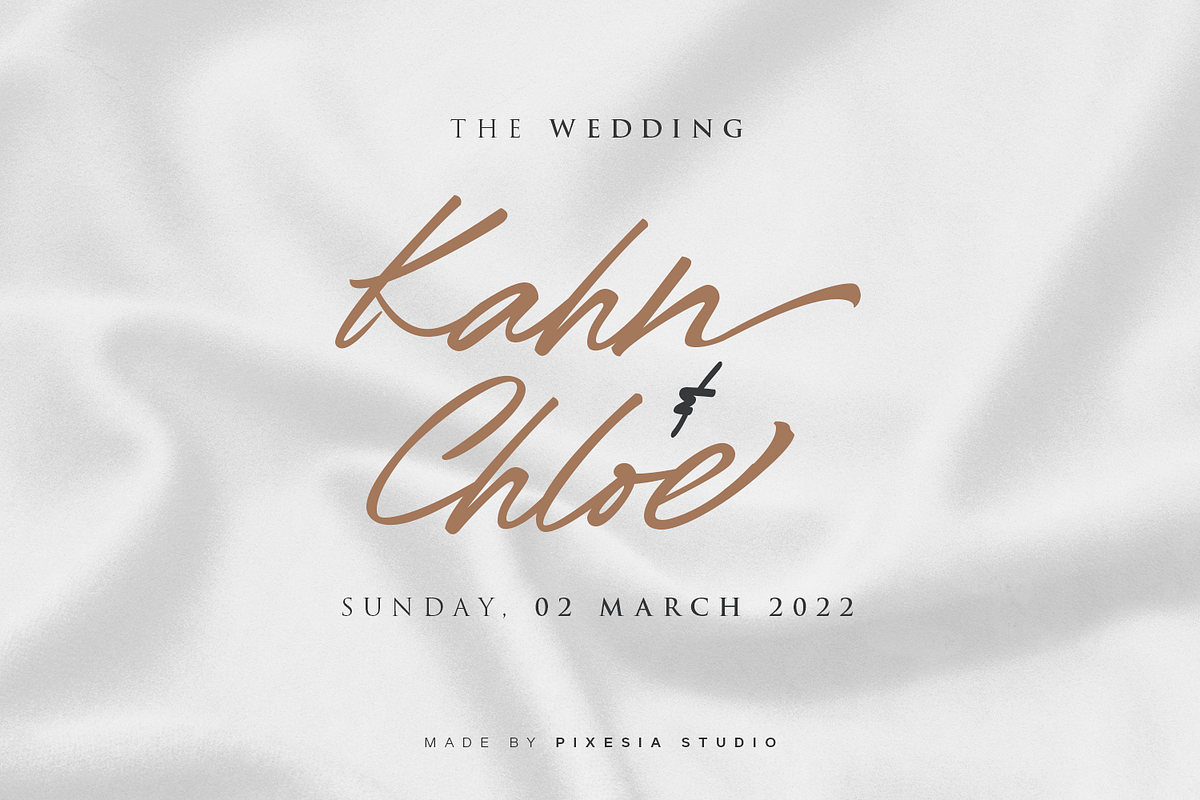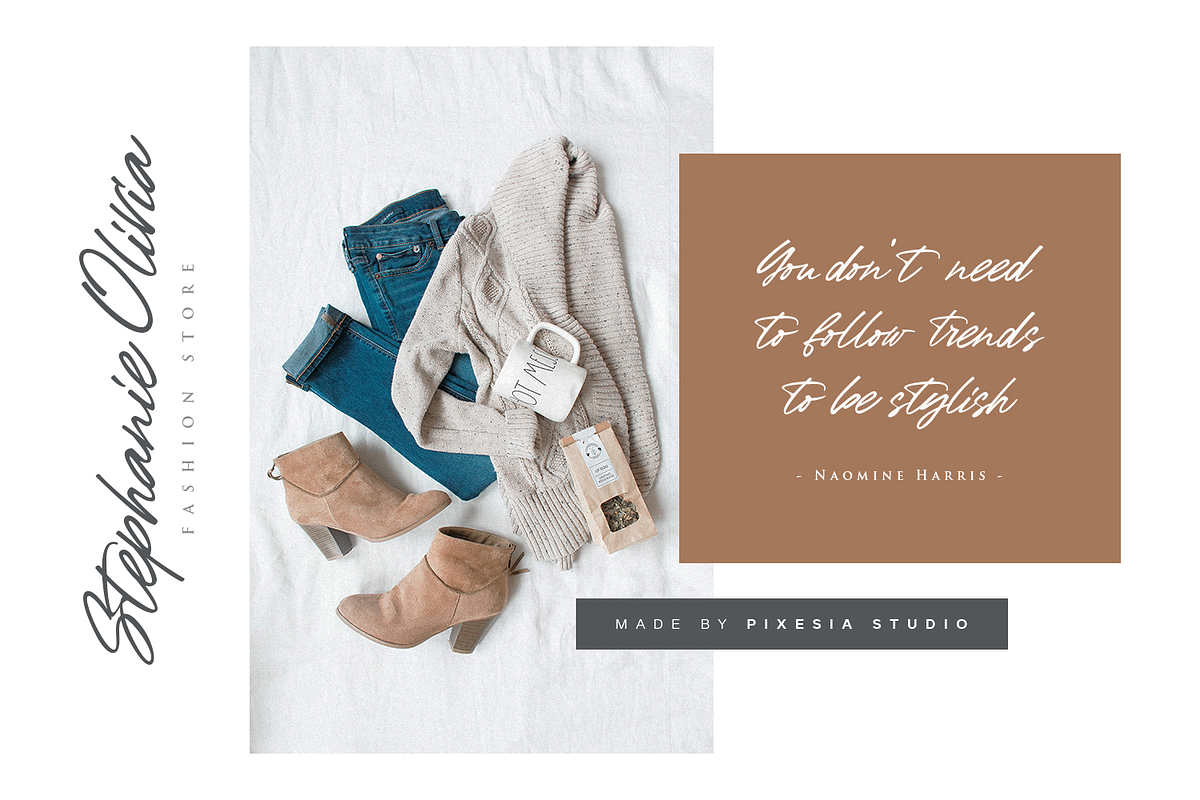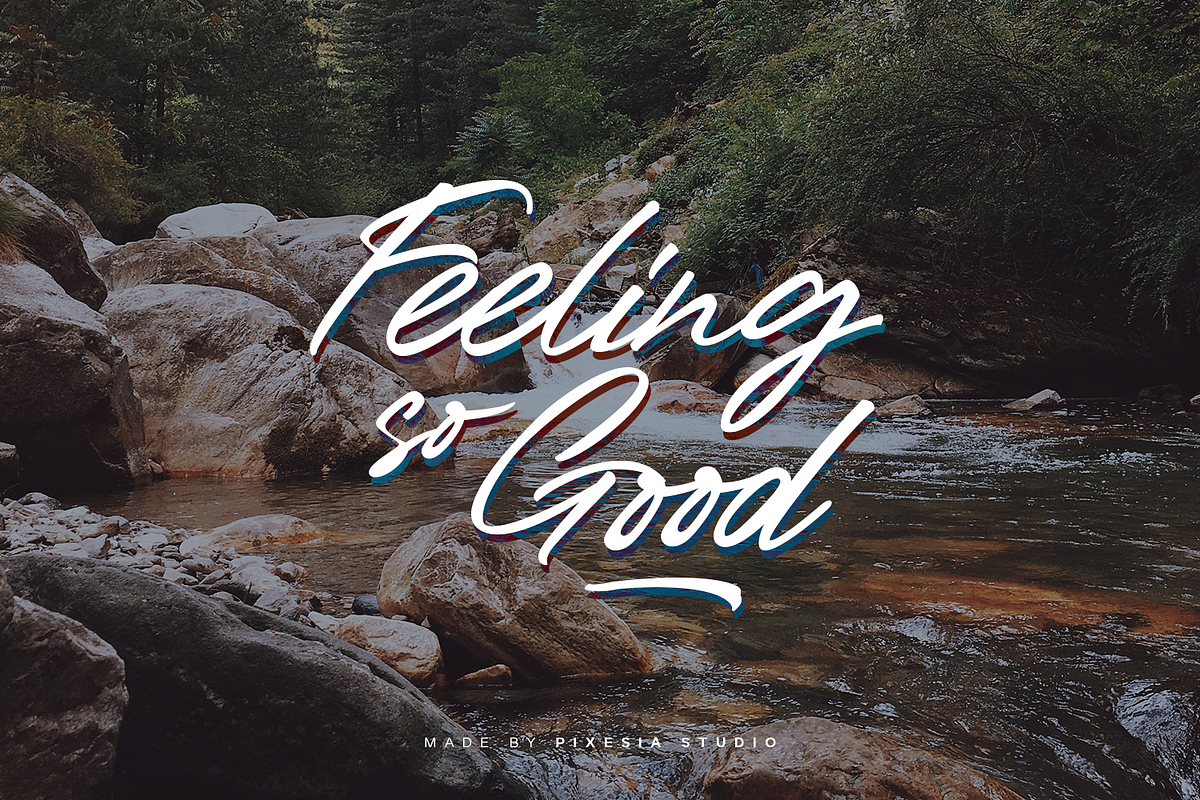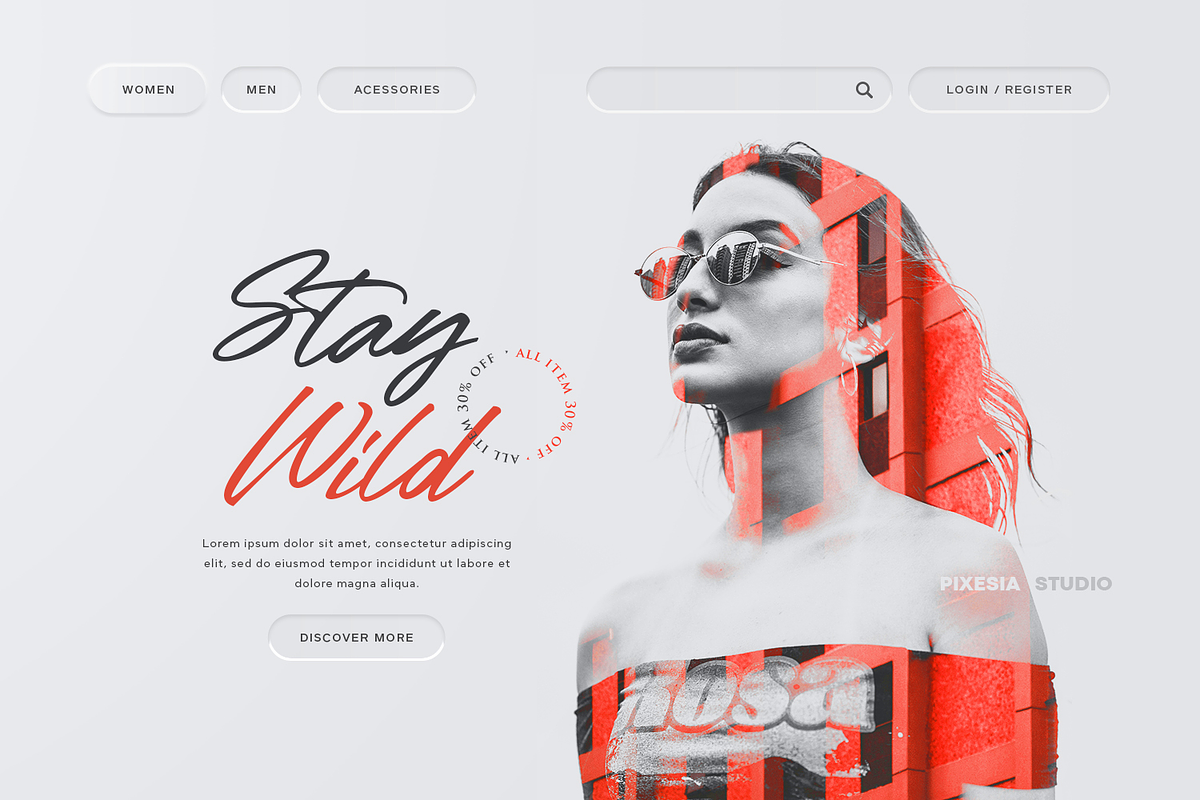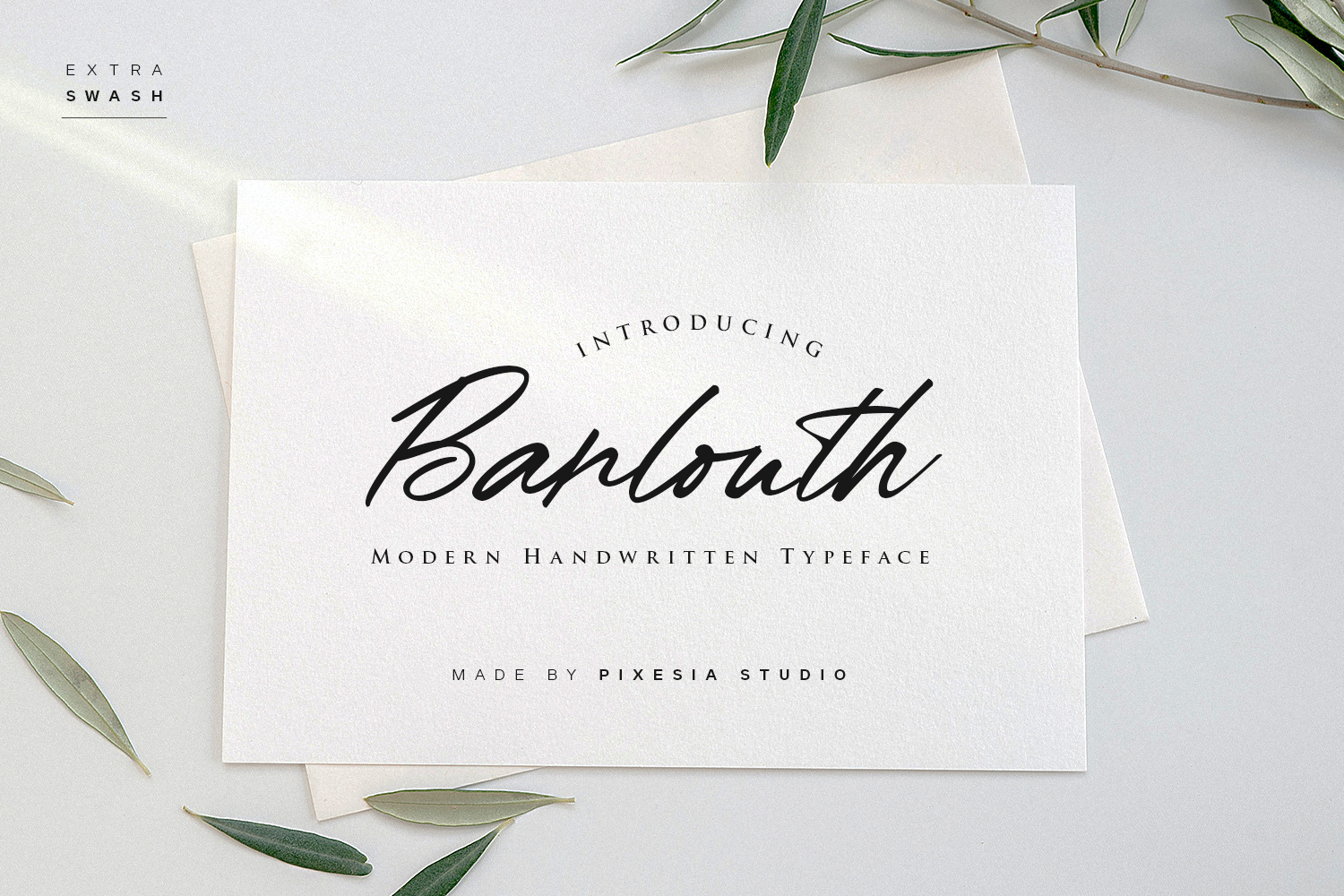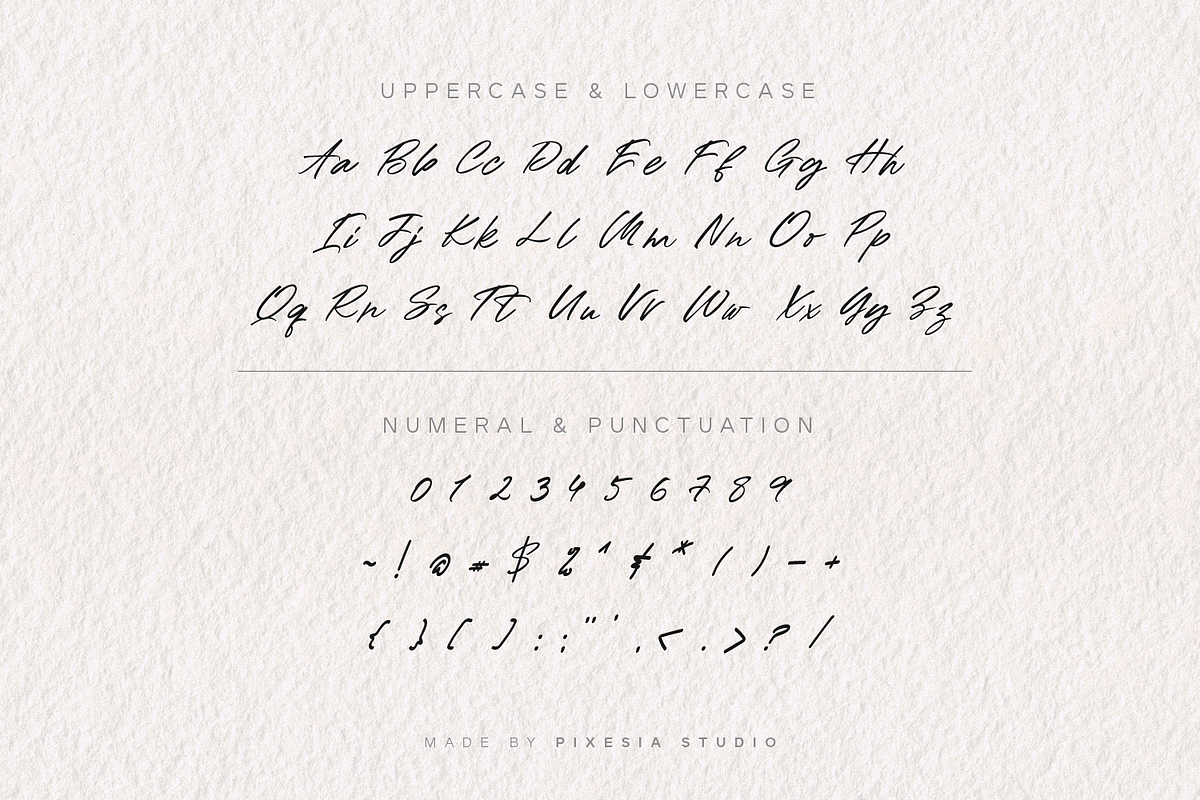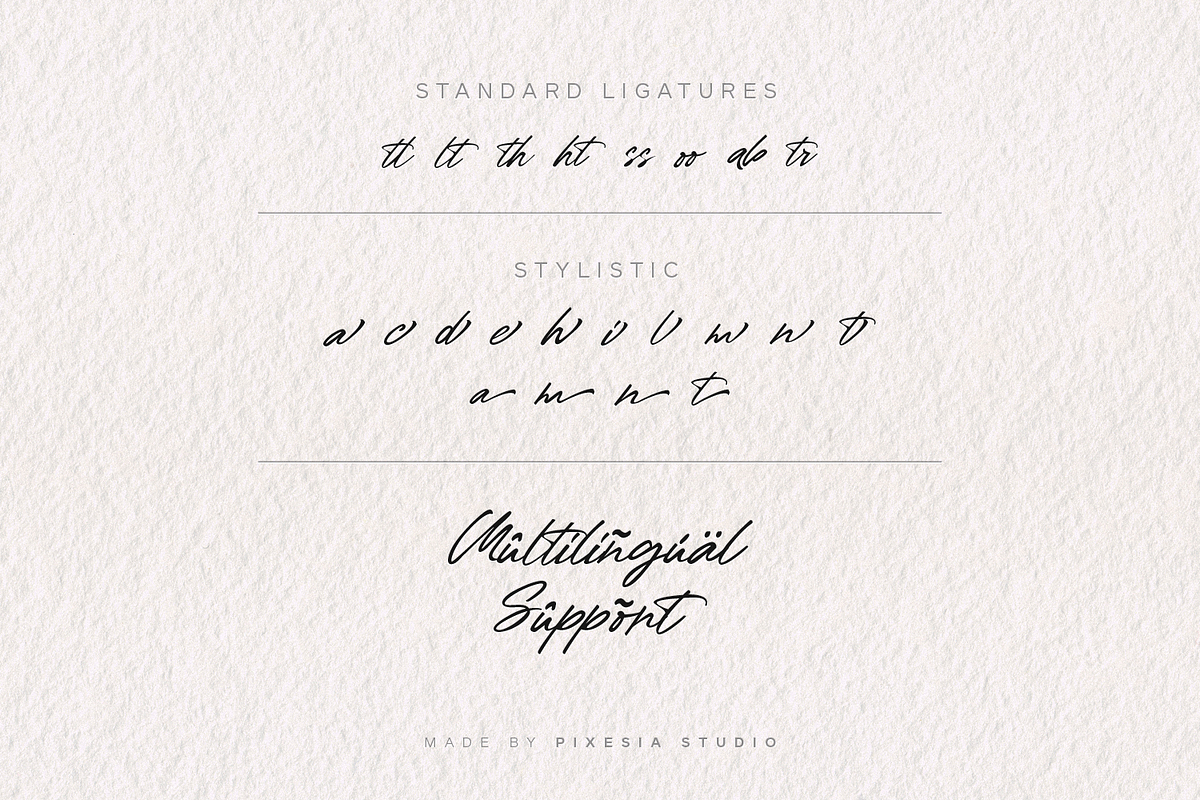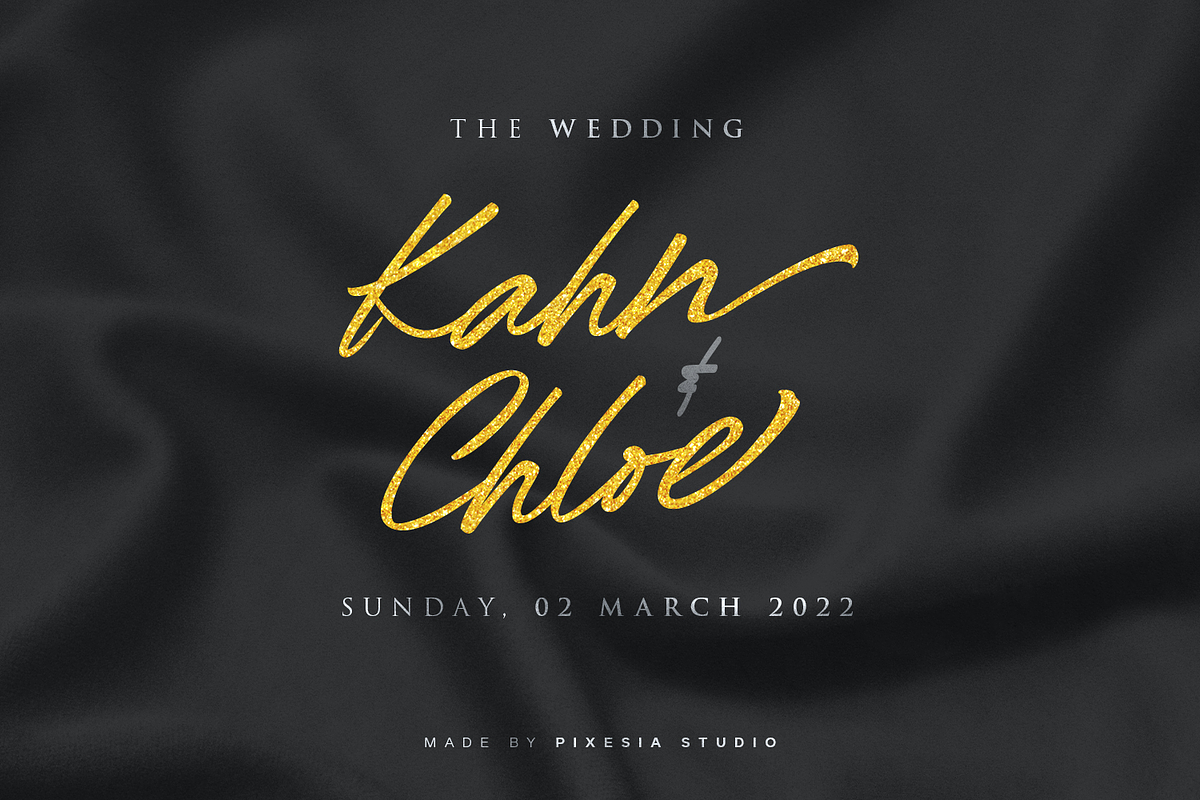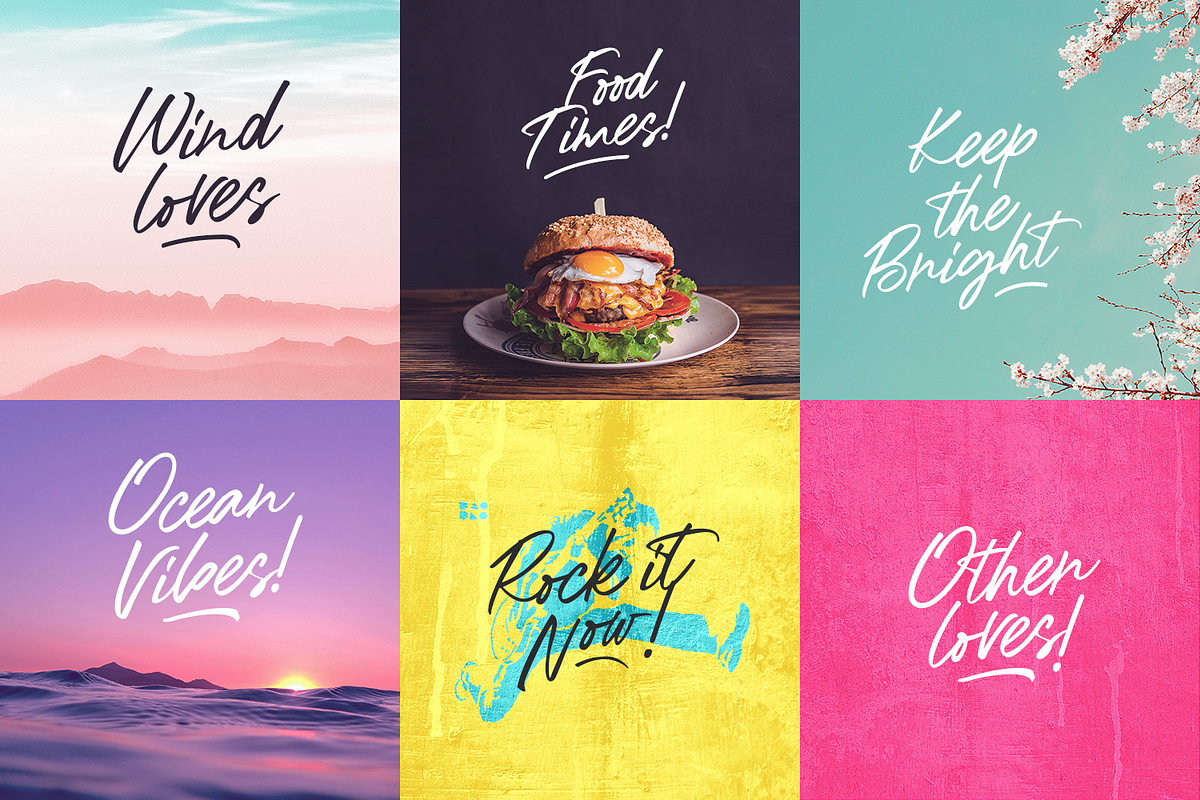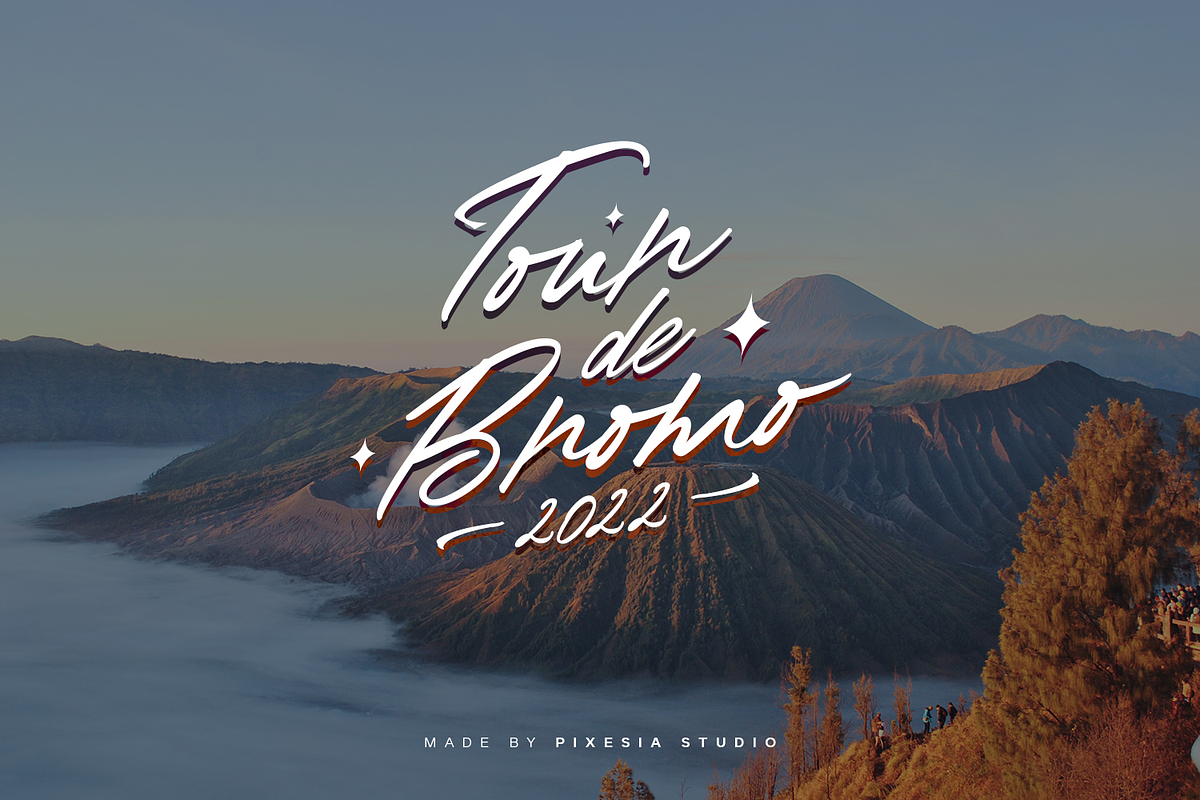
Barlouth - Modern Handwritten Font
Introducing Barlouth - A Modern Handwritten Font
Barlouth is a delicate, elegant and flowing handwritten typeface with lovely and well-balanced characteristics. Its soft curves and natural writing make it distinct and beautiful. Barlouth gives lovely typographic harmony for a wide range of design needs, including quotes, poster design, personal branding, promotional materials, logotype, product packaging, etc. Add it to your most creative ideas and see how they come to life!